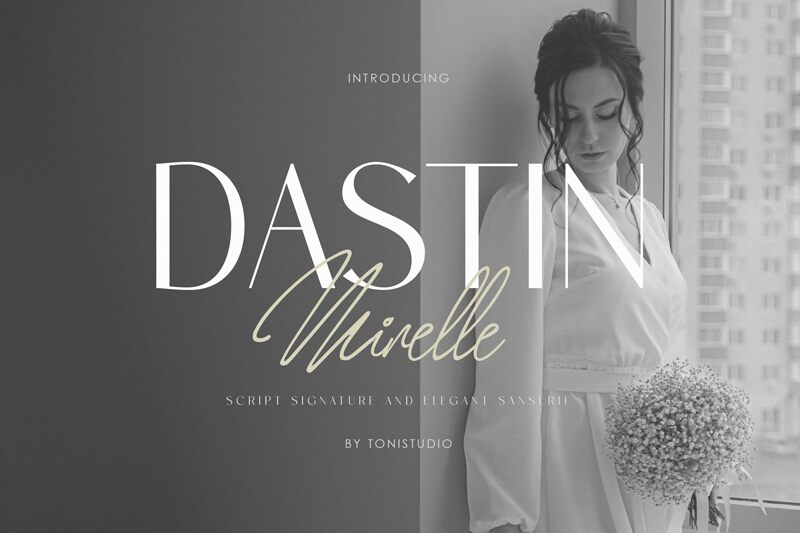
Dastin
Dastin font by ToniStudio is an elegant, modern, and versatile condensed font that brings sleekness to your designs. Inspired by classic details with a sophisticated touch, this free sans serif font makes subtle elegance the focal point for every project you use it in.
Use Dastin in your logos, product packaging and labels, brandings, posters and banners as well as headlines for magazines or newspapers. Additionally featured in body text for websites or apps.